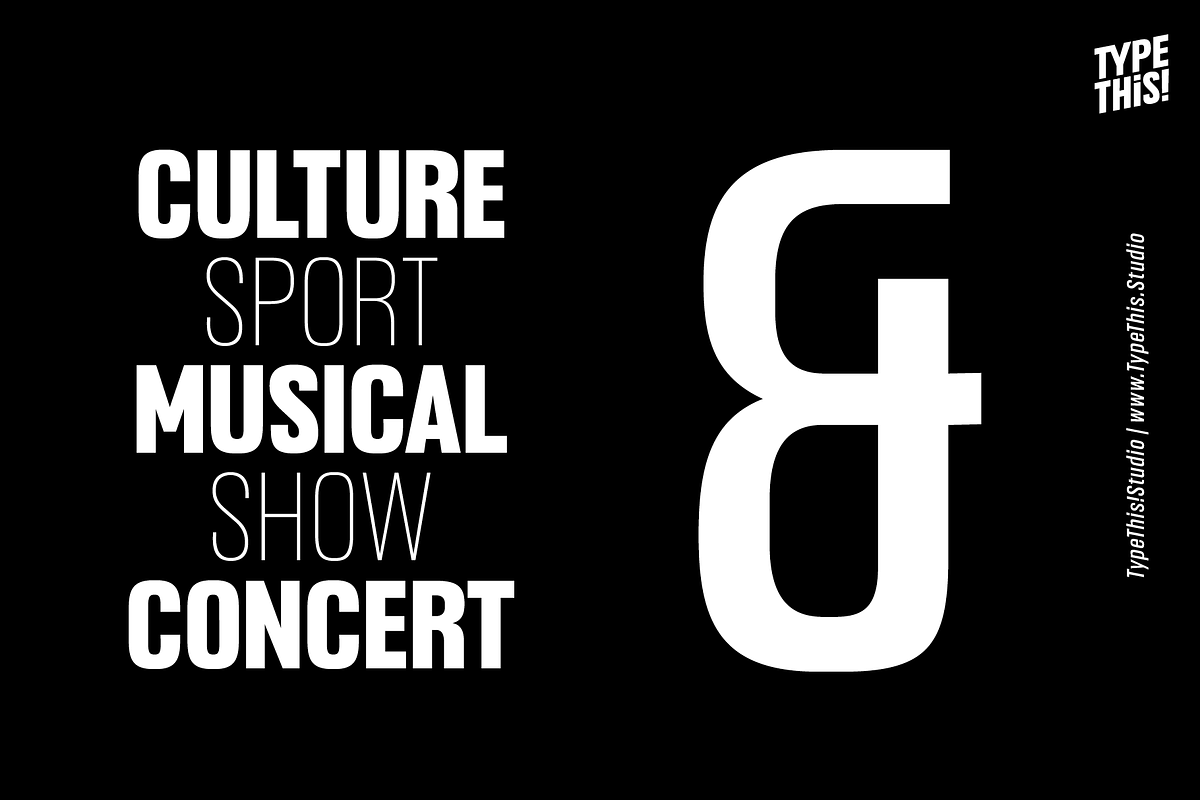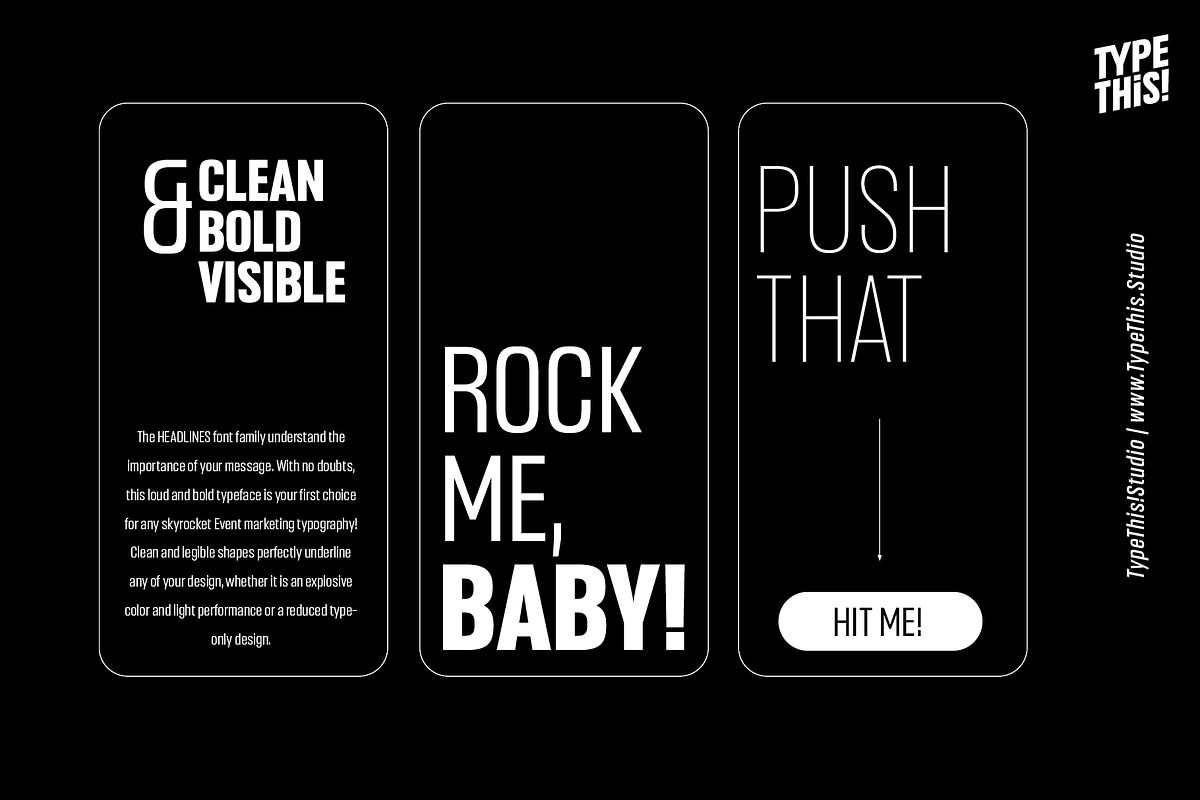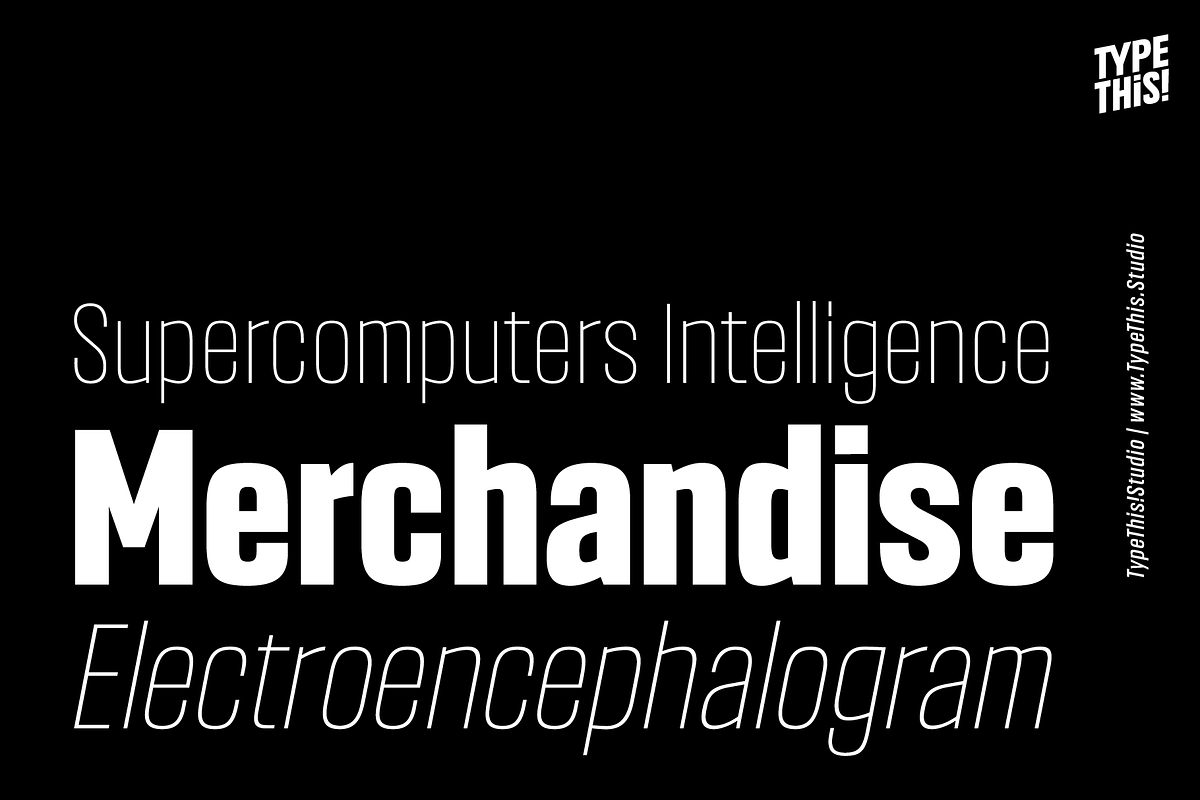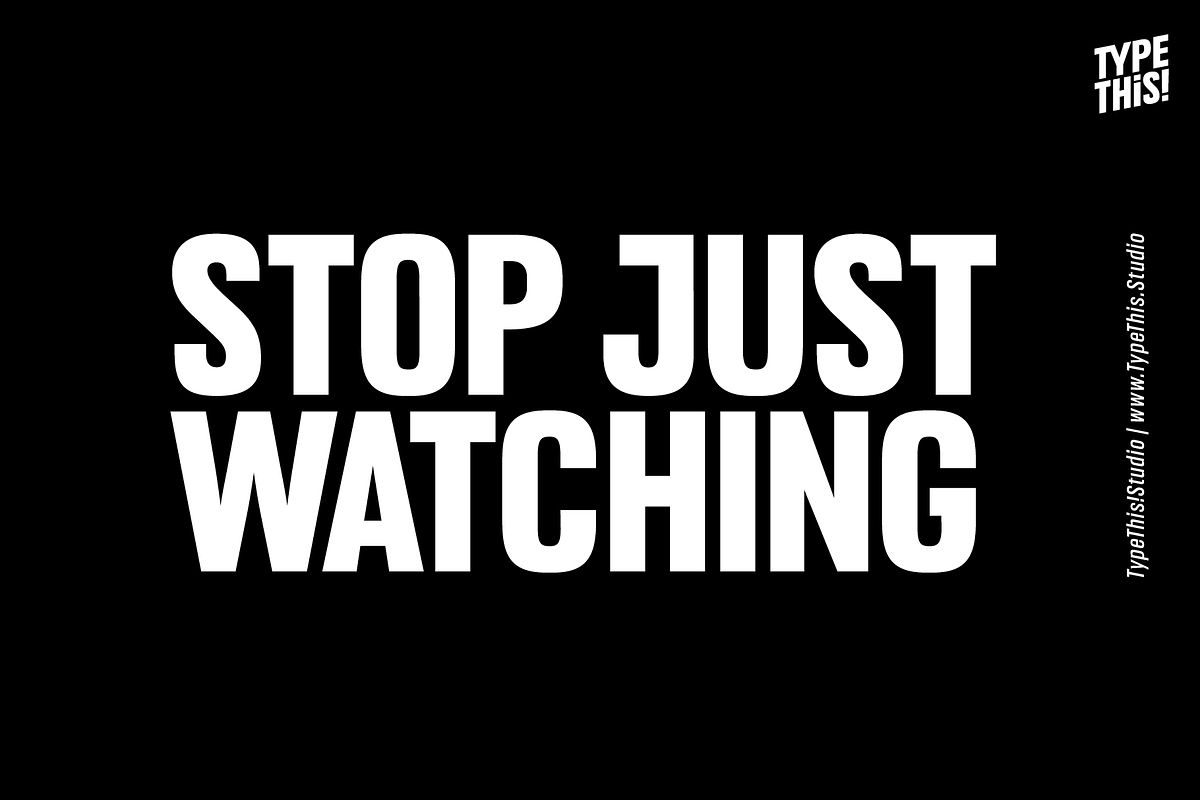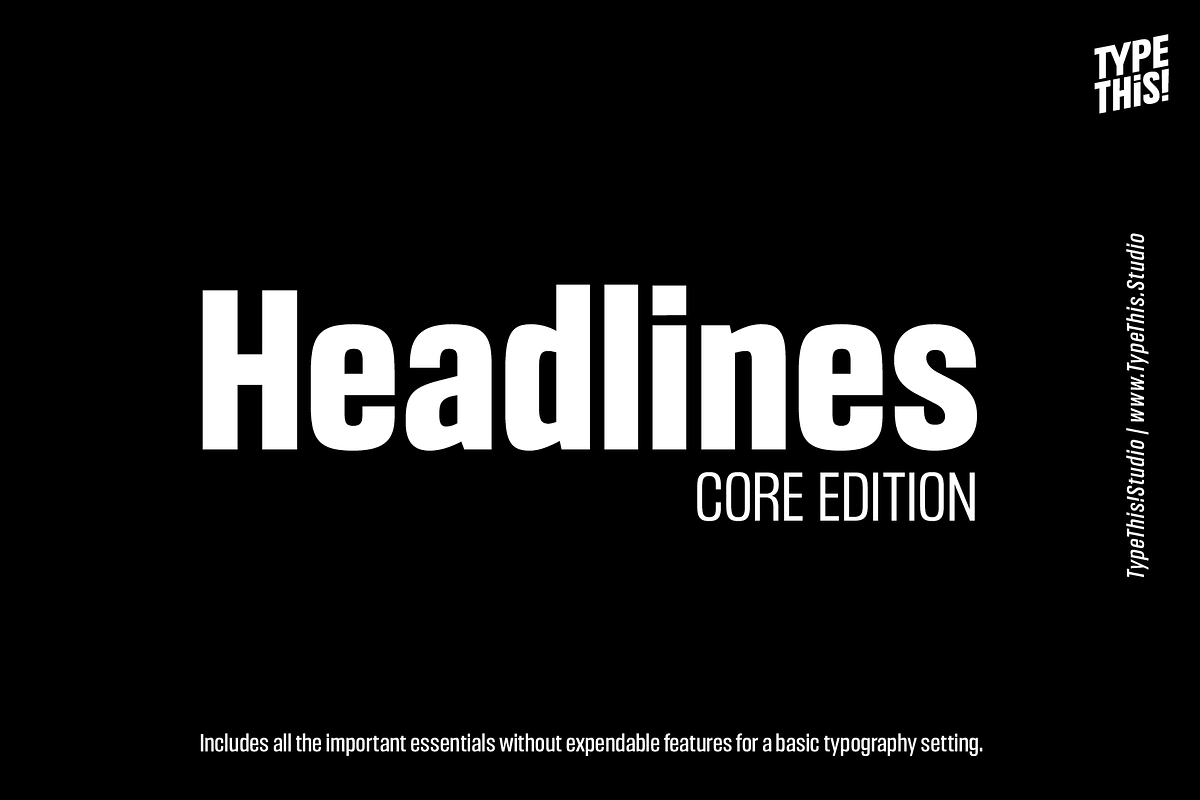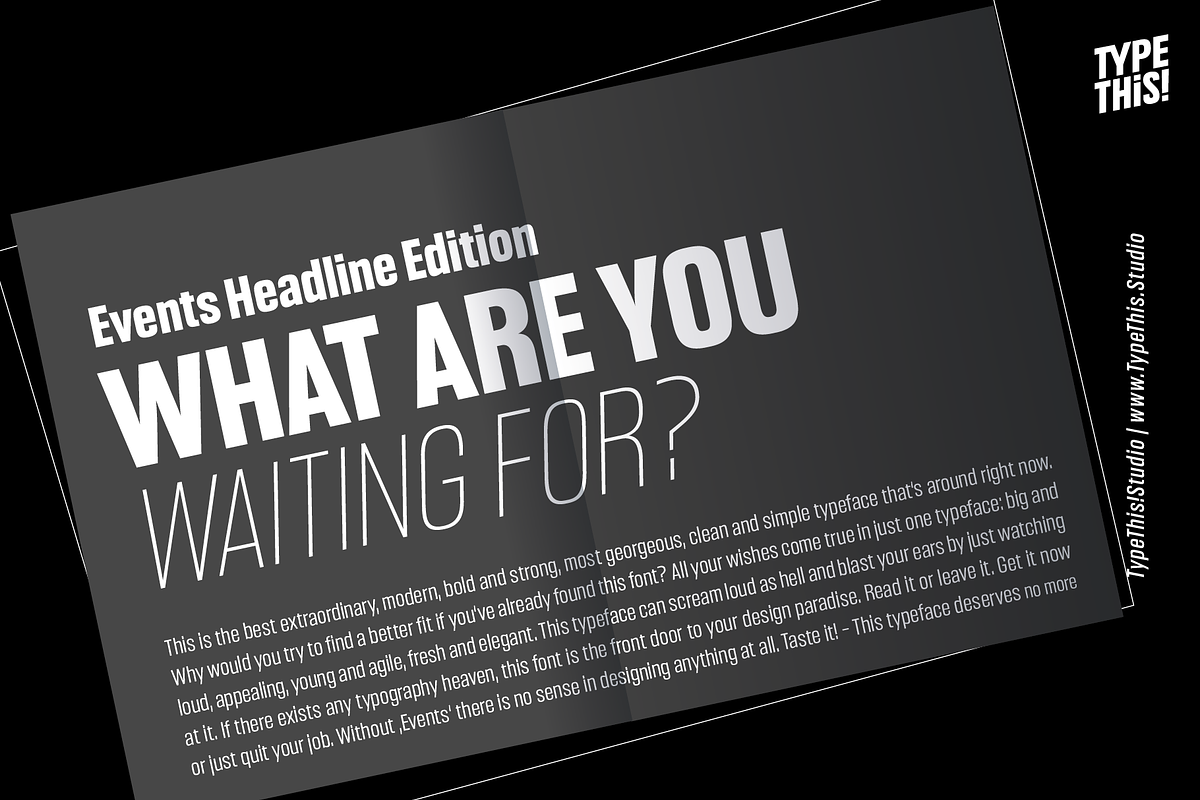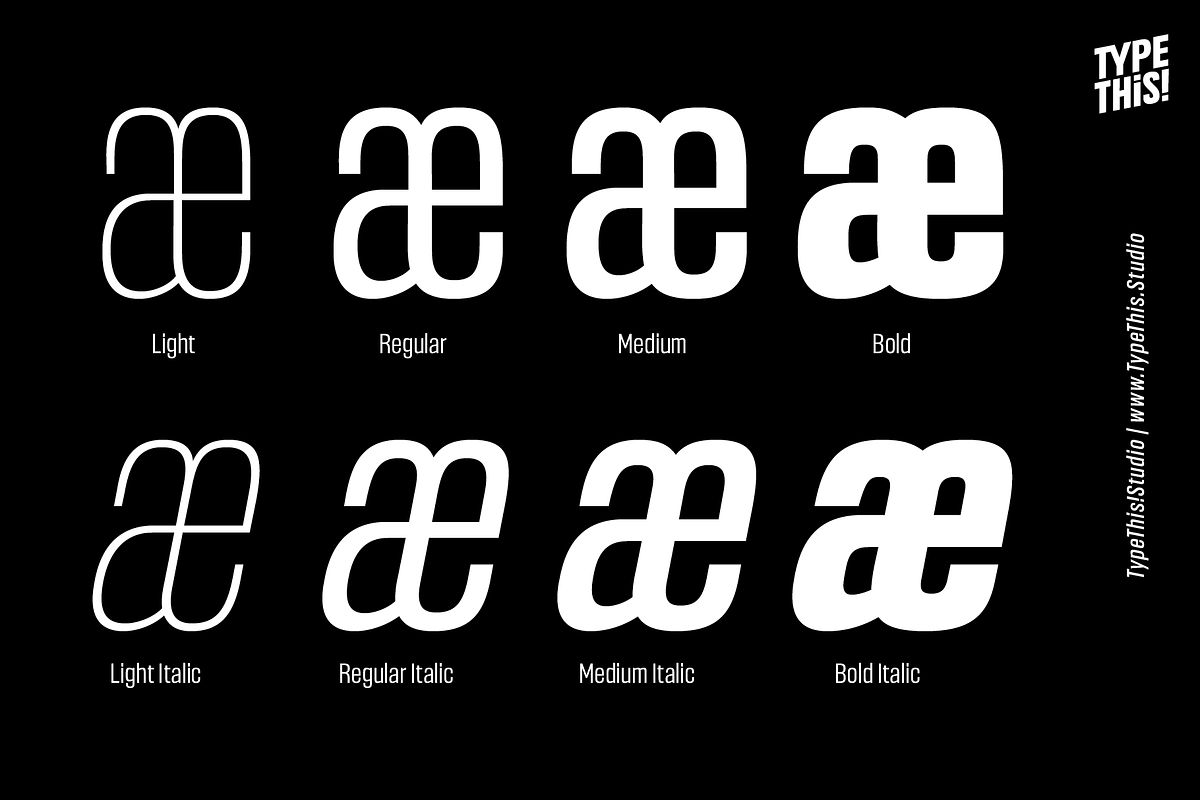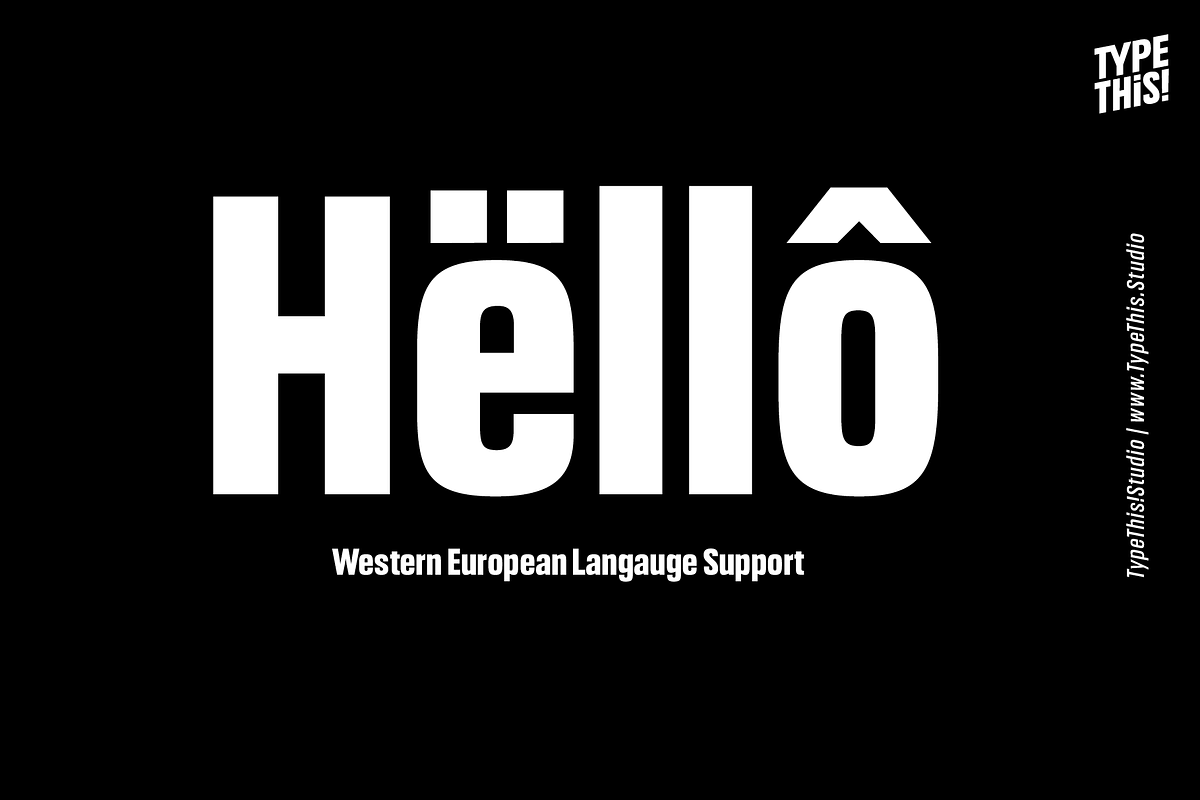
Headlines Core Edition
Headlines font family was designed for optimized headline settings.
The condensed letters are designed for clear and straight headlines and also allow longer words and headlines to find the space they need for a well-composed headline.
This version covers all the essentials of Headlines
- 265 Characters
- 8 Styles, including Italics
- Western European Language Support